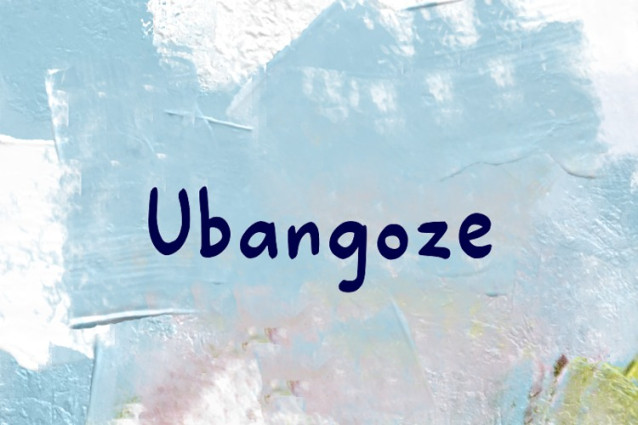
Ubangoze Font
Ubangoze Font a sweet and friendly handwritten font. Cute and fun, this font is ideal for writing wedding invitations, cards, or any other design that might need a fun touch!